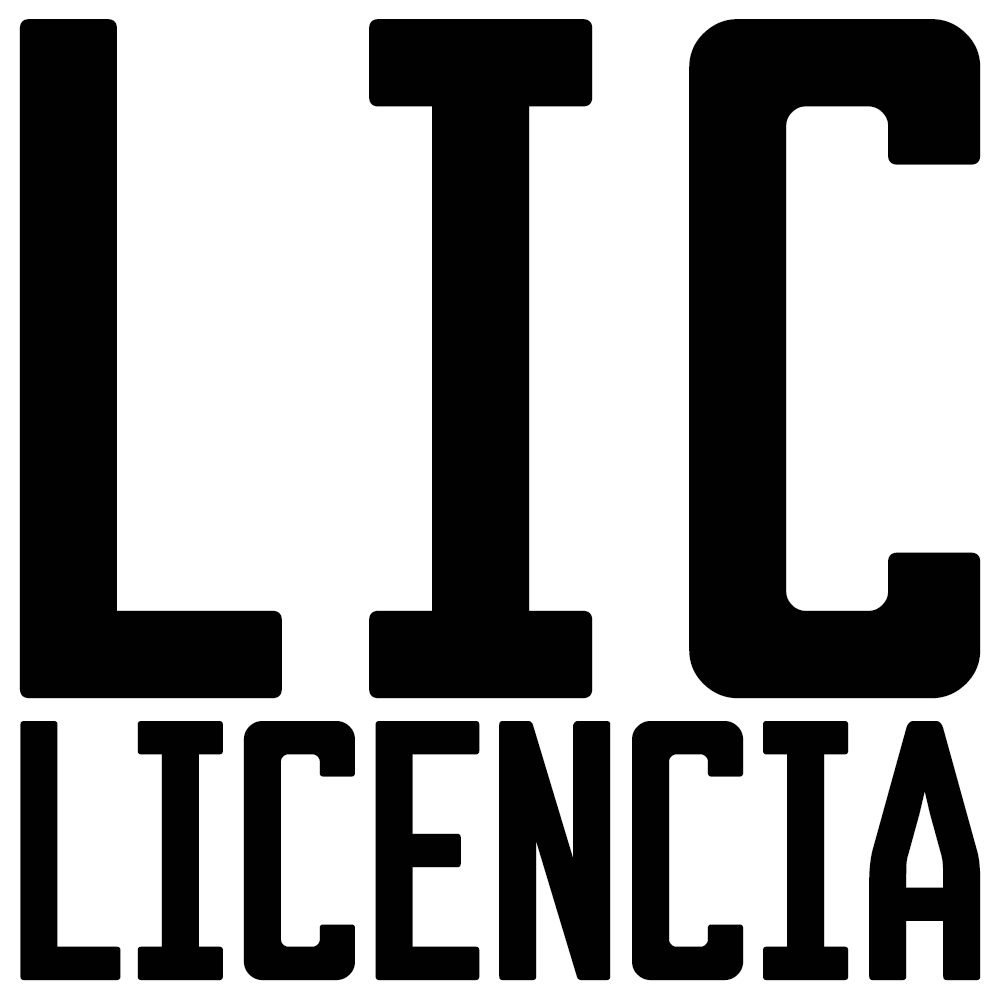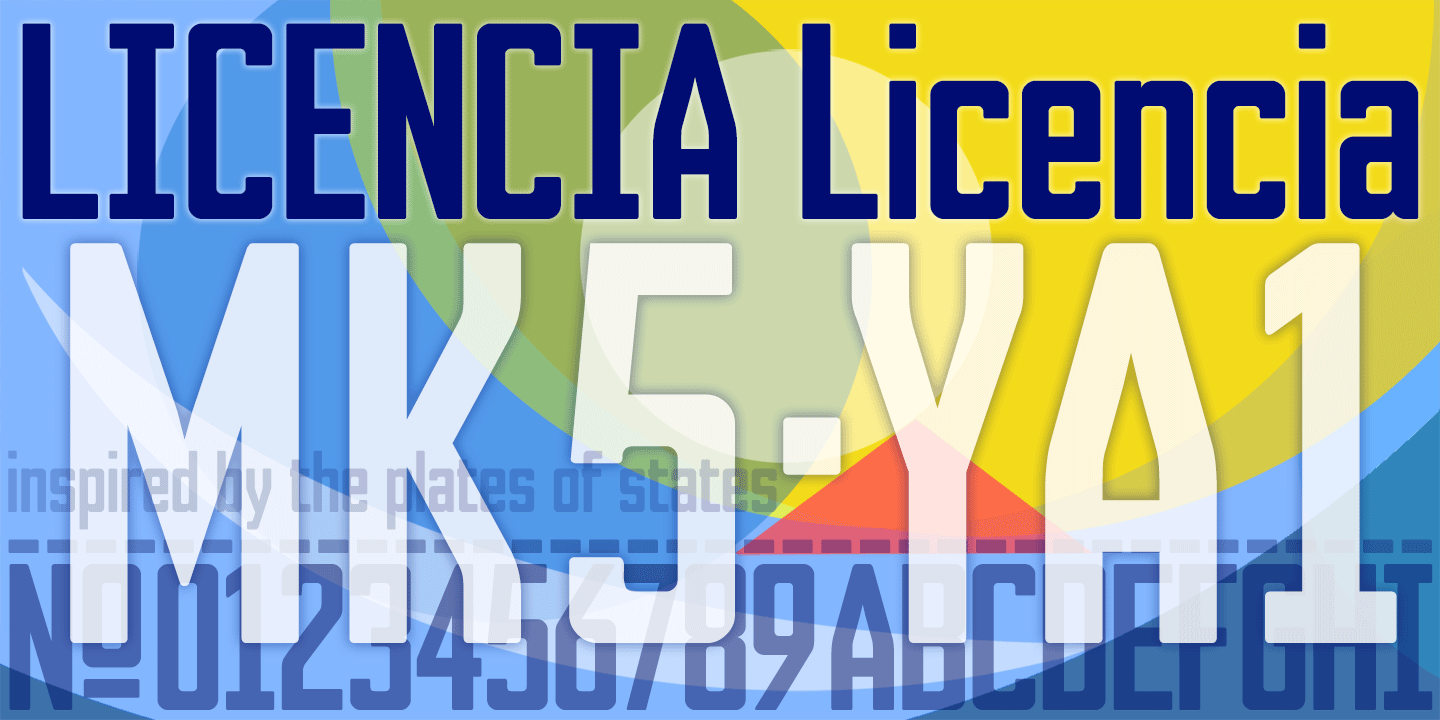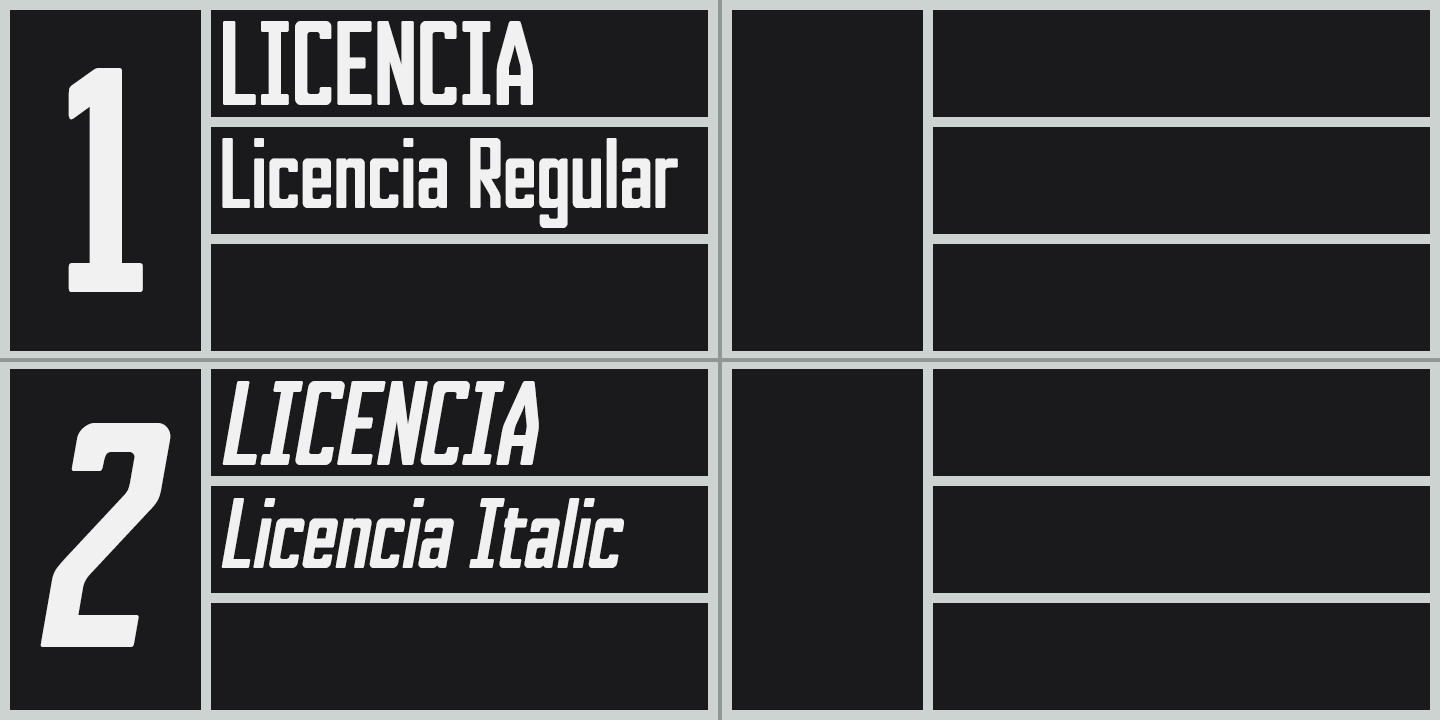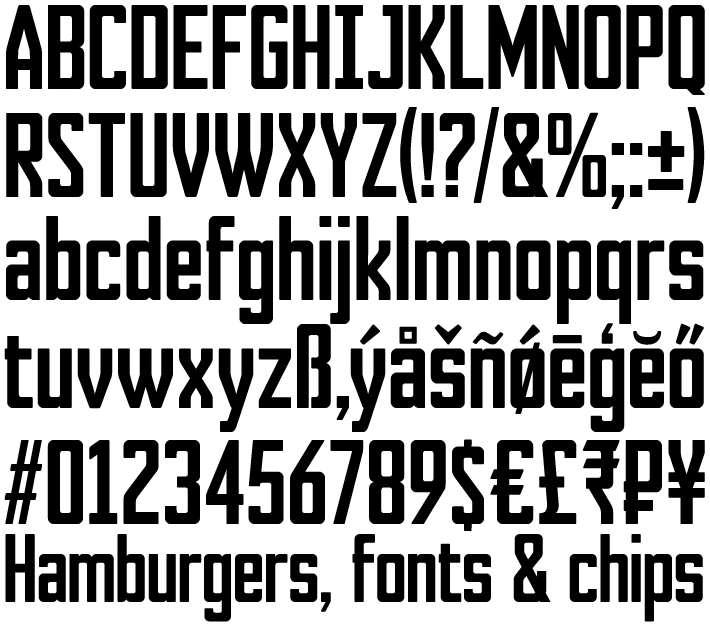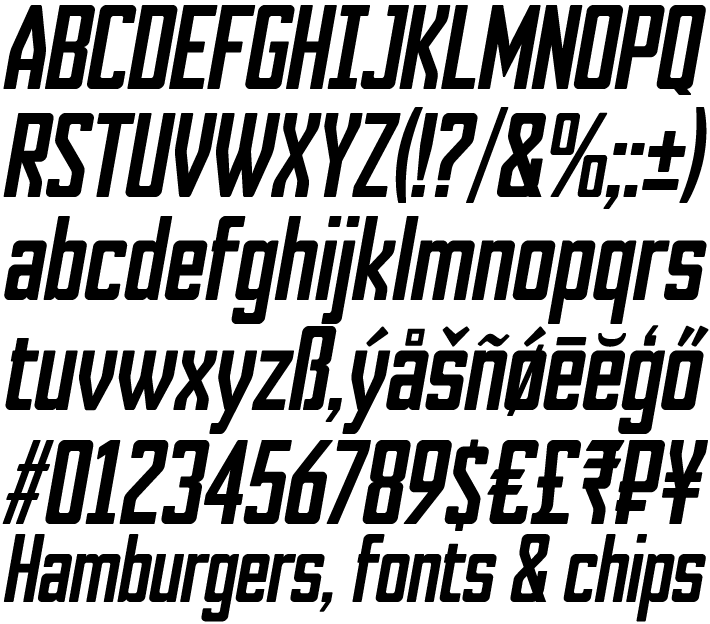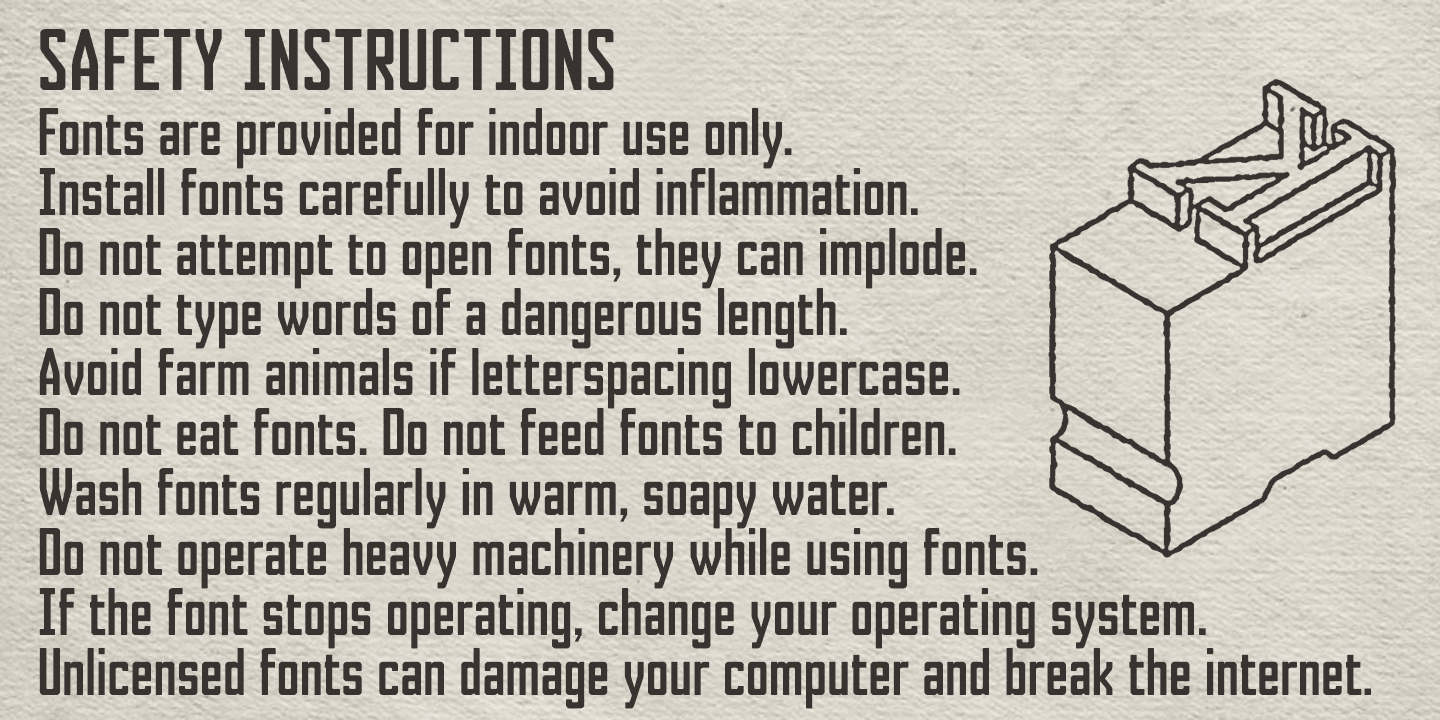
Licencia
Licencia is inspired by the tall, soft-cornered lettering on vehicle licence and registration plates world-wide, and has the functional appearance of serial numbering. Although designed using a 3×7 matrix, Licencia breaks free of the grid whenever necessary and doesn’t stick rigidly to its monospaced origins.
Licencia has features that normal block faces don’t offer. It has a proper lowercase, boasts a full complement of Latin Extended-A characters, and the licensed download includes a faux italic. The fonts are optically spaced, and kerned where necessary, making them more useful and satisfying for display purposes.